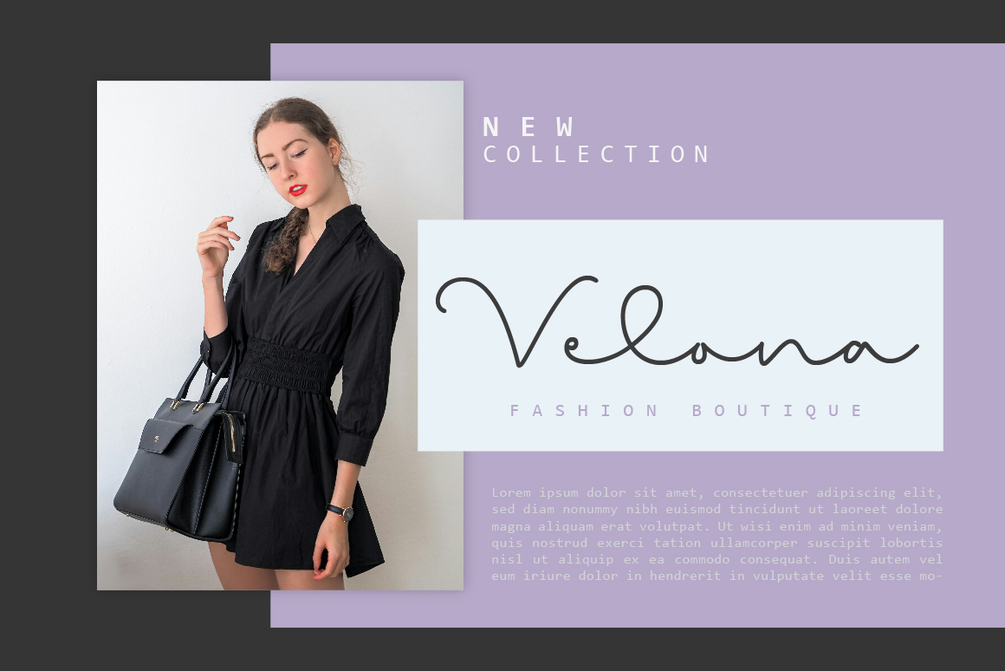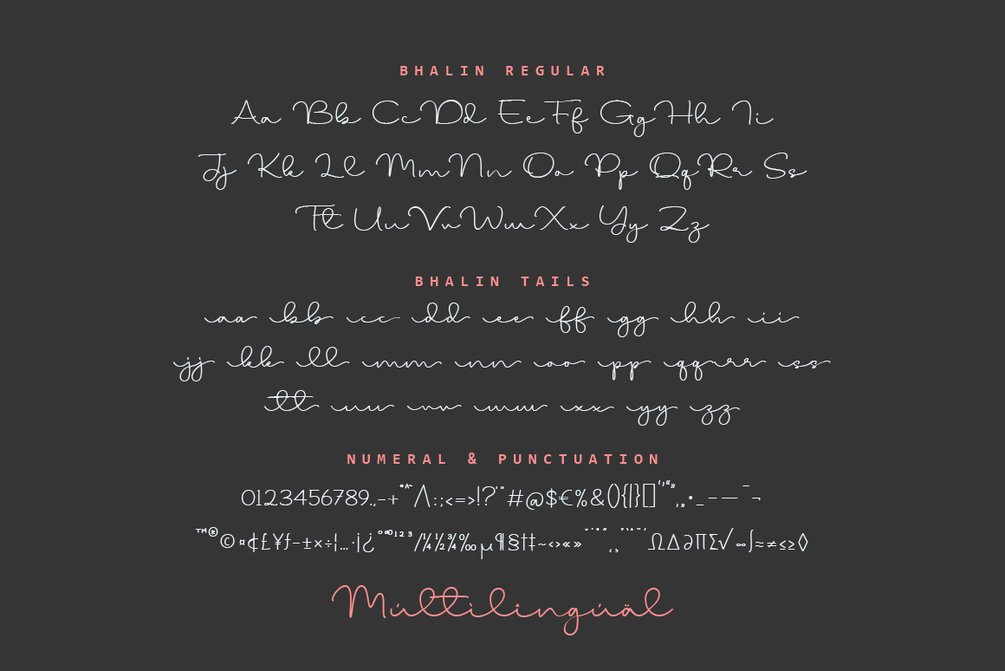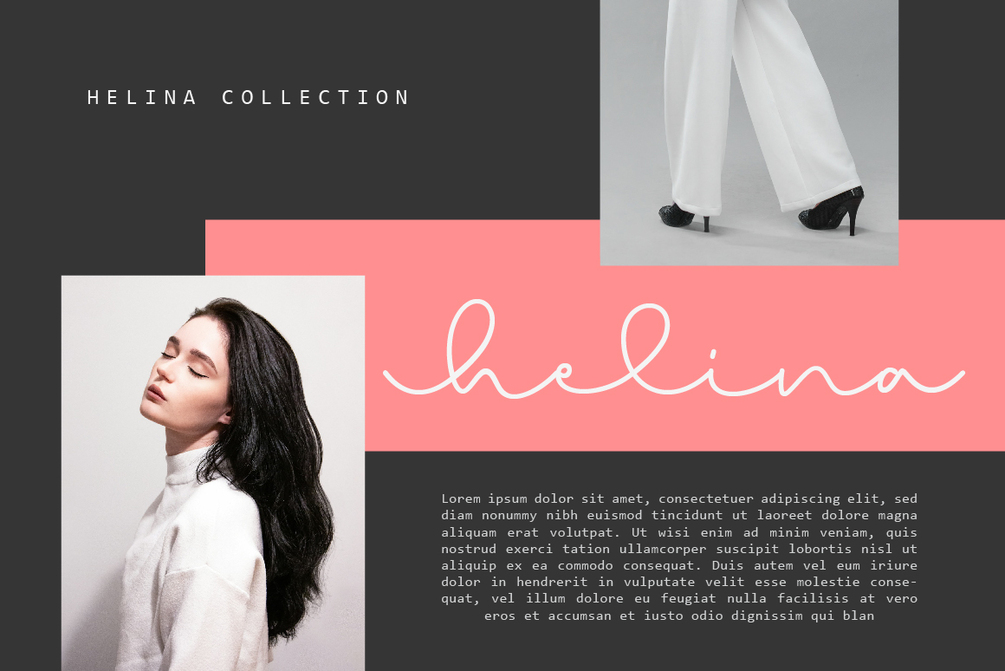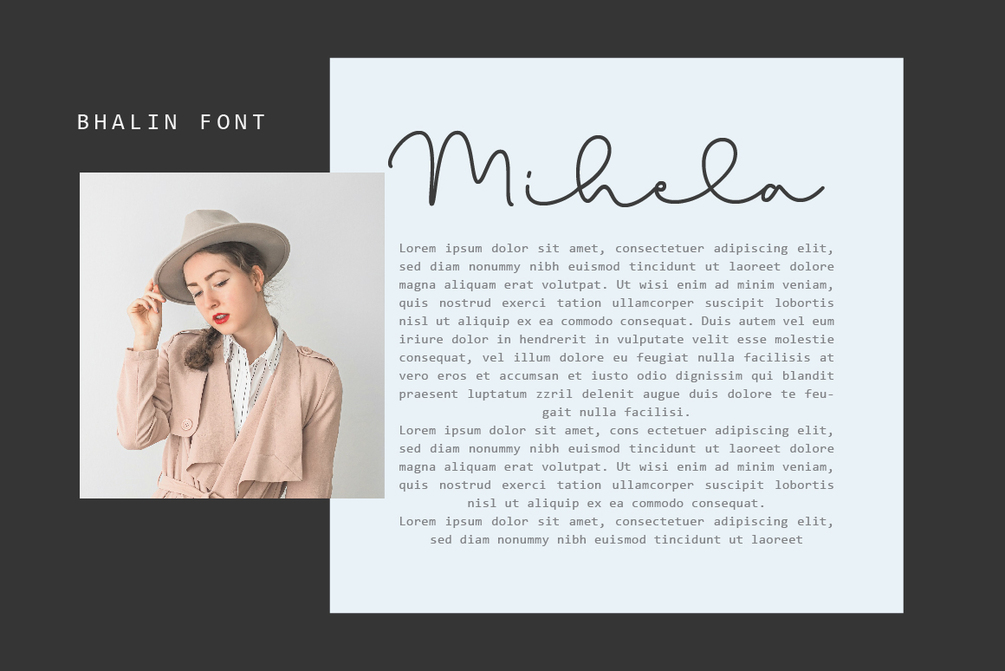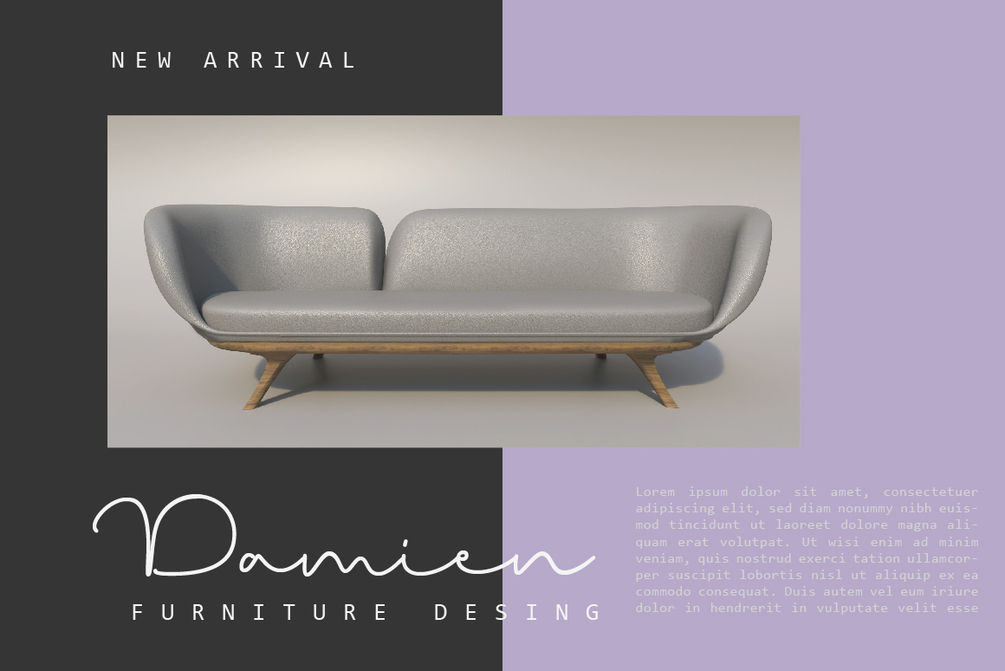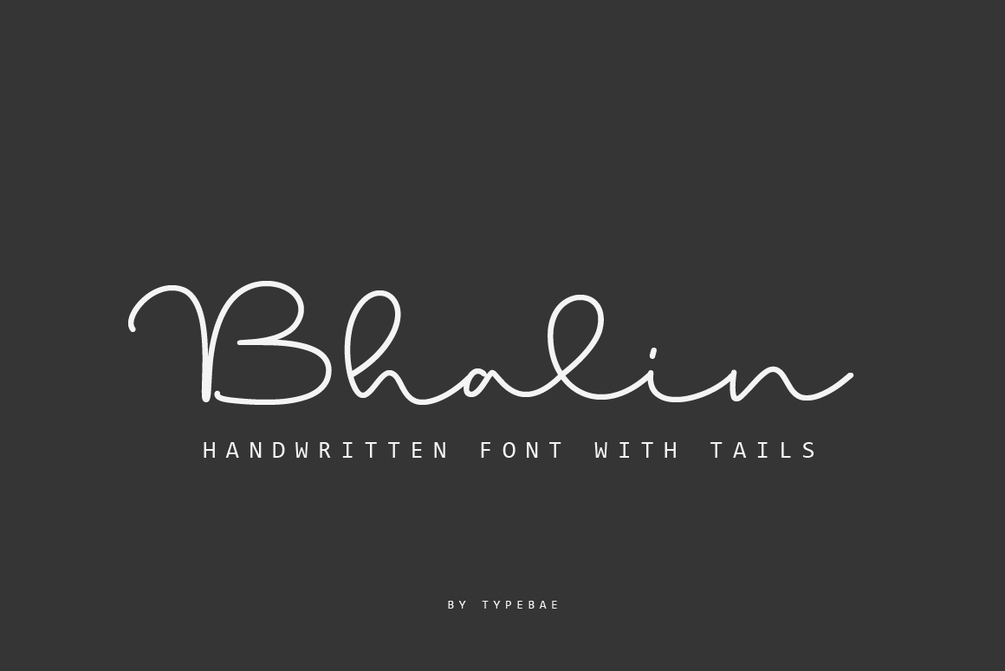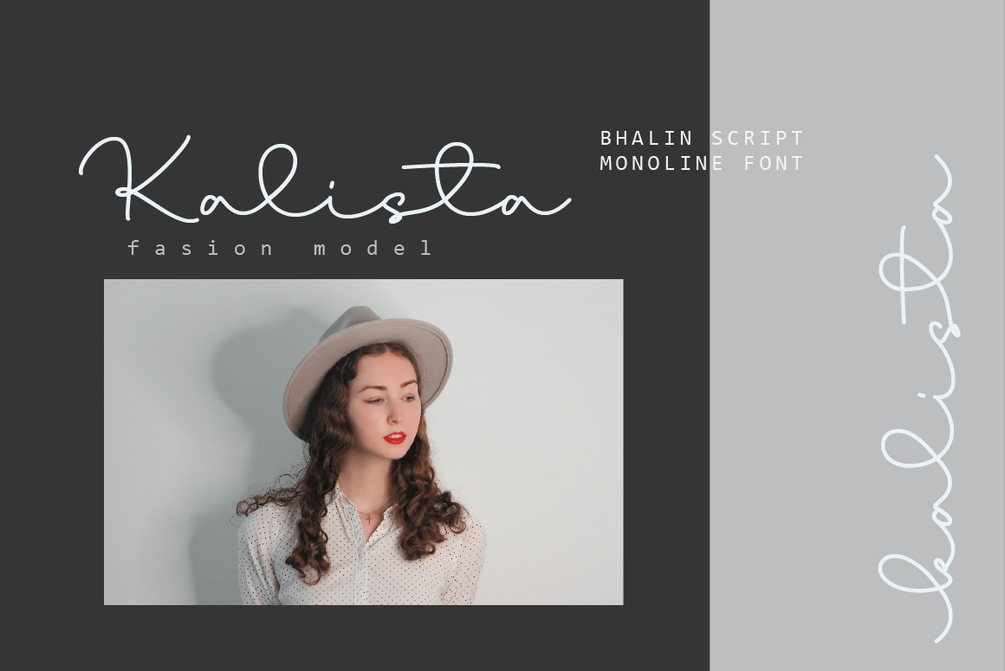
Bhalin
Bhalin is a monoline handwritten script font with beautiful tails at the beginning and end of each letter. This font showcases a natural signature style, with lovely tails allowing certain letter combinations to flow smoothly for an authentic appearance, making it suitable for various projects requiring a natural handwriting touch.
To use beginning and ending tails, you don't need to use software that supports opentype, because we have made it separately so it's very easy to use.
Features: Ligature, Stylistic Alternate (tails), Multilingual and PUA encoded.